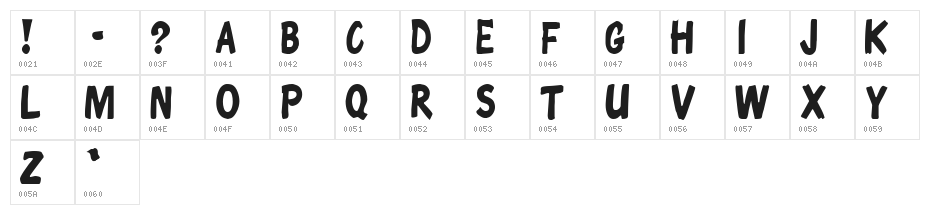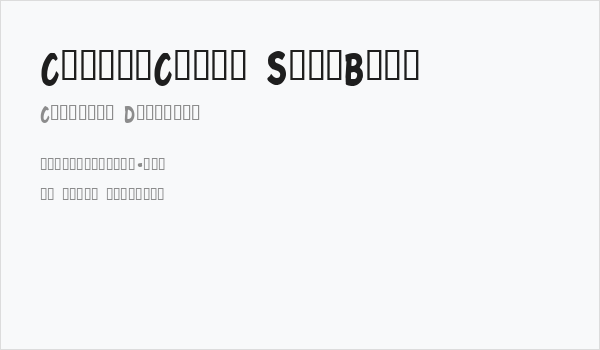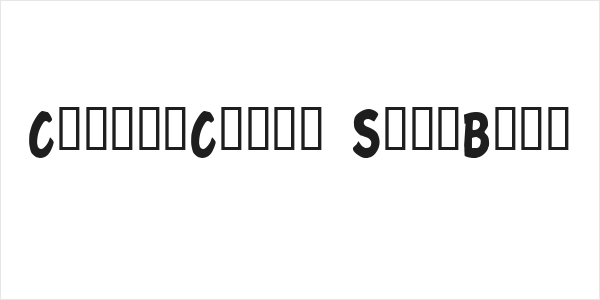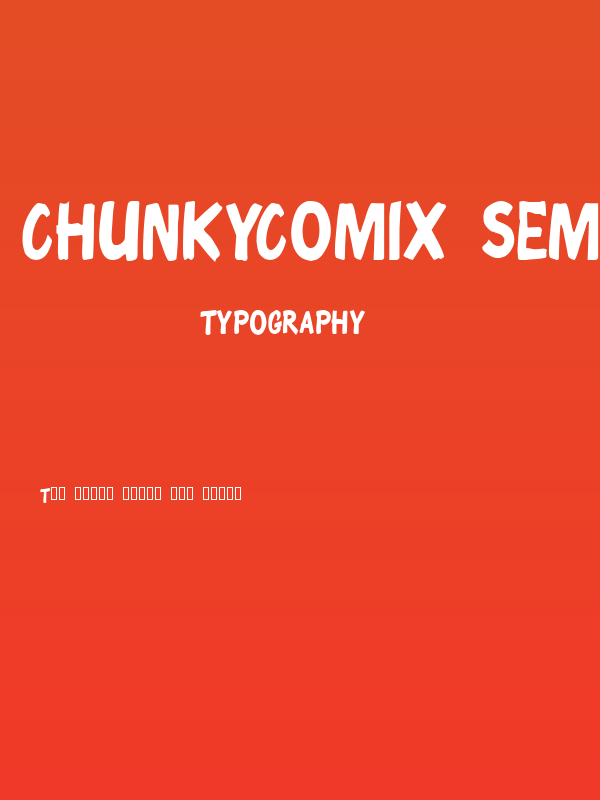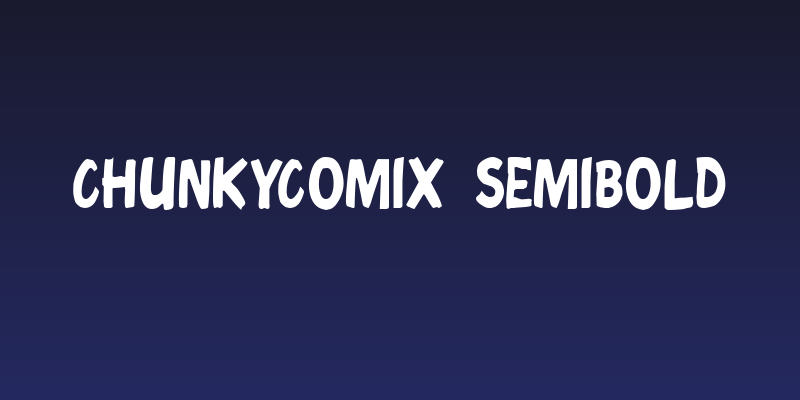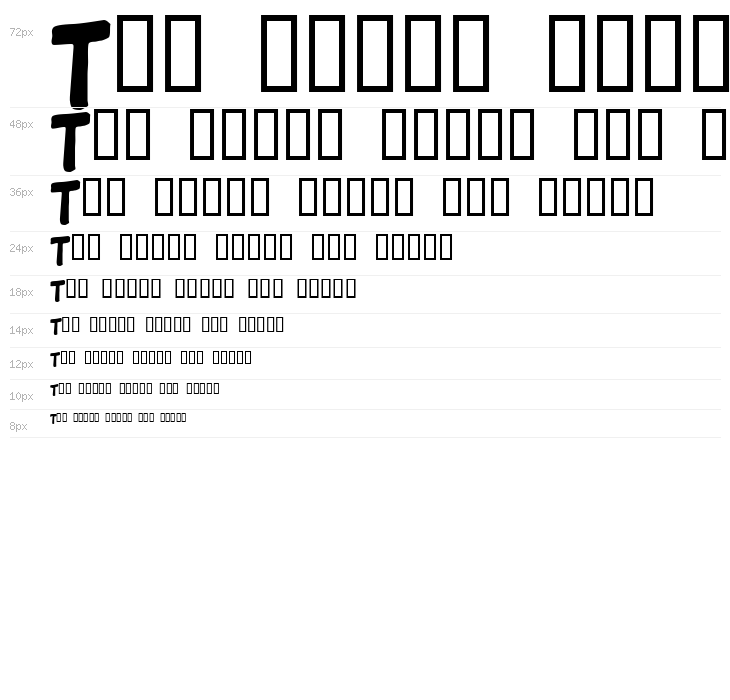
ChunkyComix SemiBold Font
ChunkyComix SemiBold Description
This font features bold, playful characters with a comic-inspired style. The uppercase letters are thick and rounded, giving a sense of fun and energy. The strokes are consistent in width, contributing to a cohesive and uniform appearance. The font exudes a casual and informal vibe, making it suitable for projects that require a lighthearted and approachable look. The characters are well-spaced, ensuring readability while maintaining a dynamic and lively aesthetic.
| Overall Style | Playful, Casual |
| Proposed Projects | Ideal for comic books, children's books, playful branding, and casual posters. |